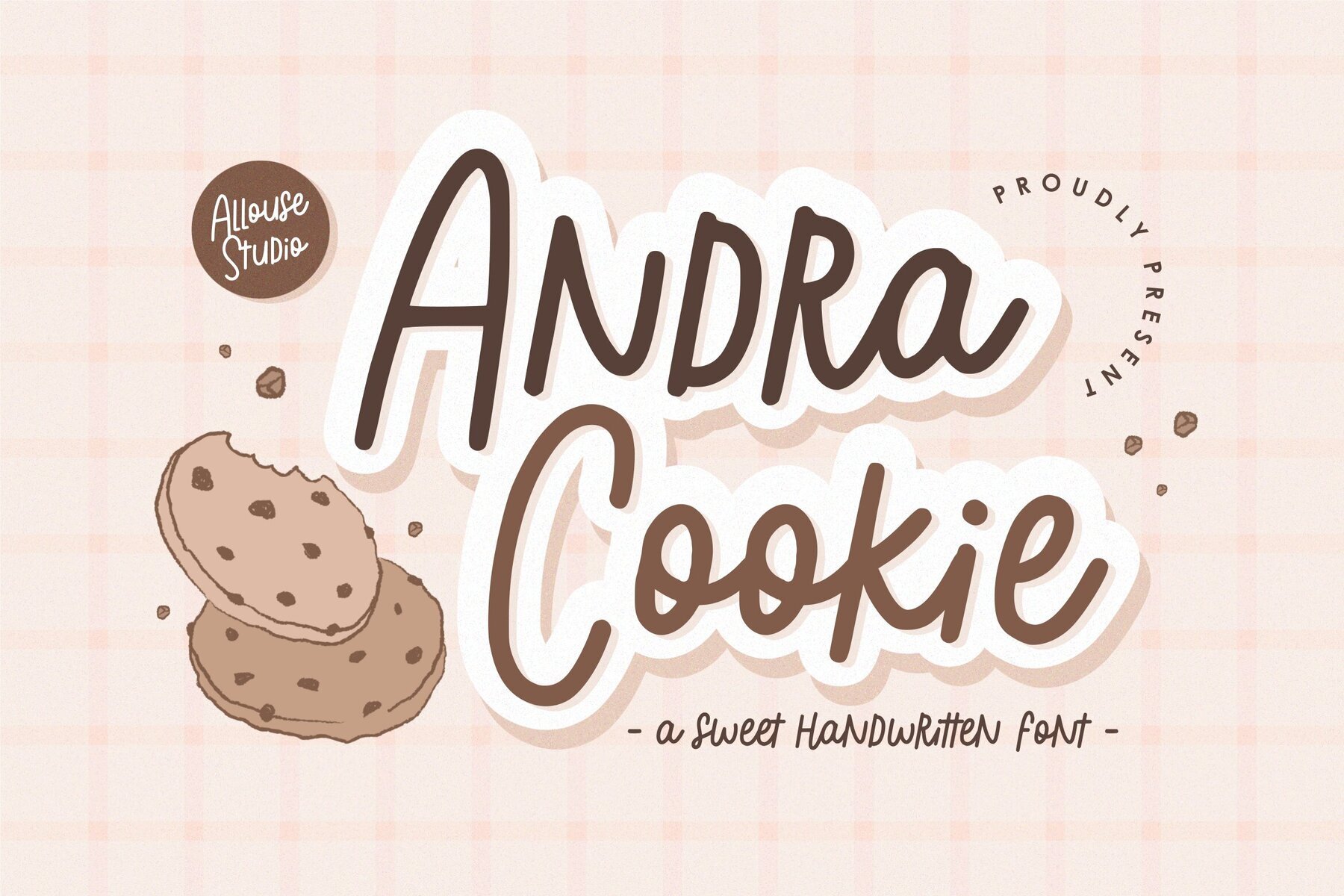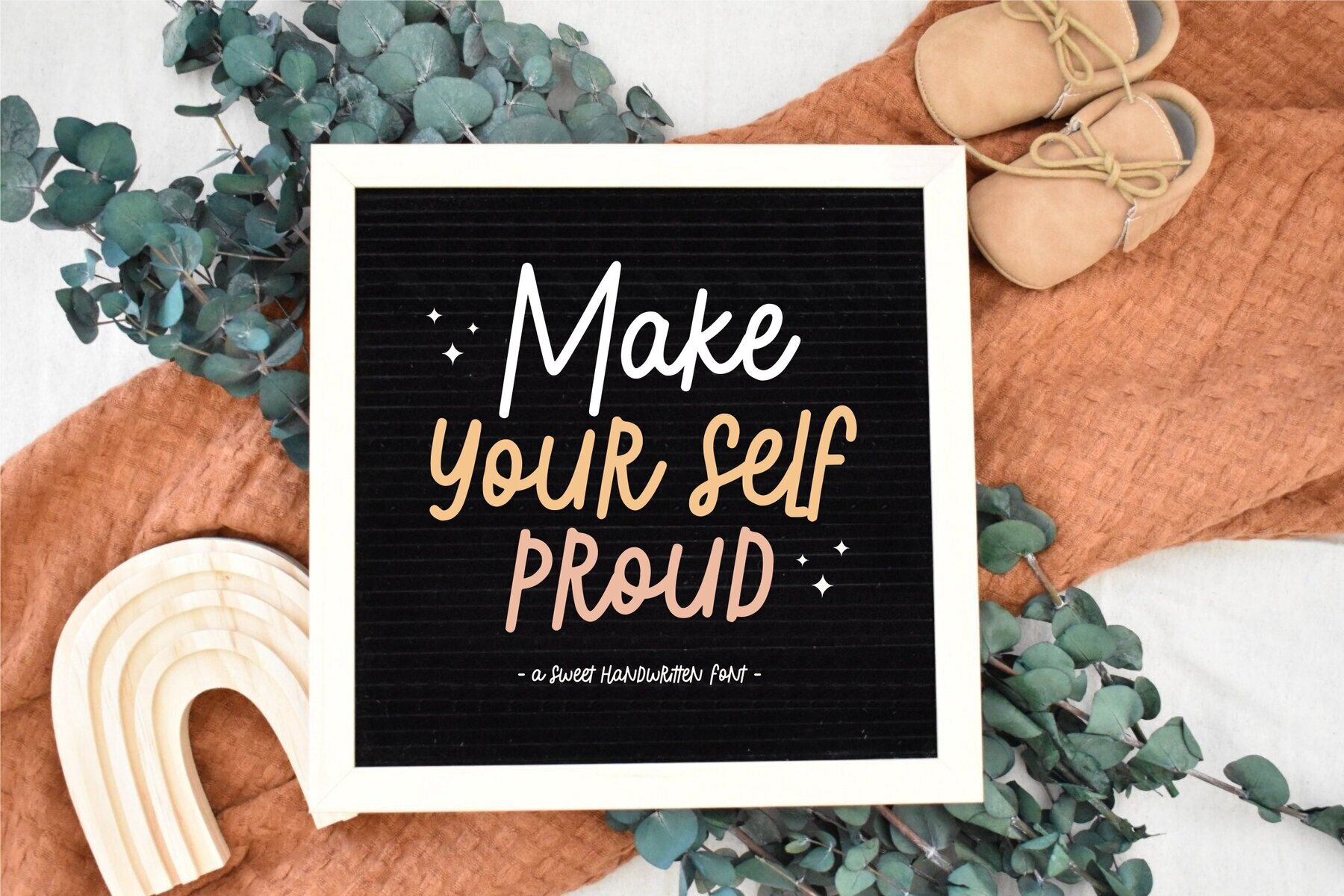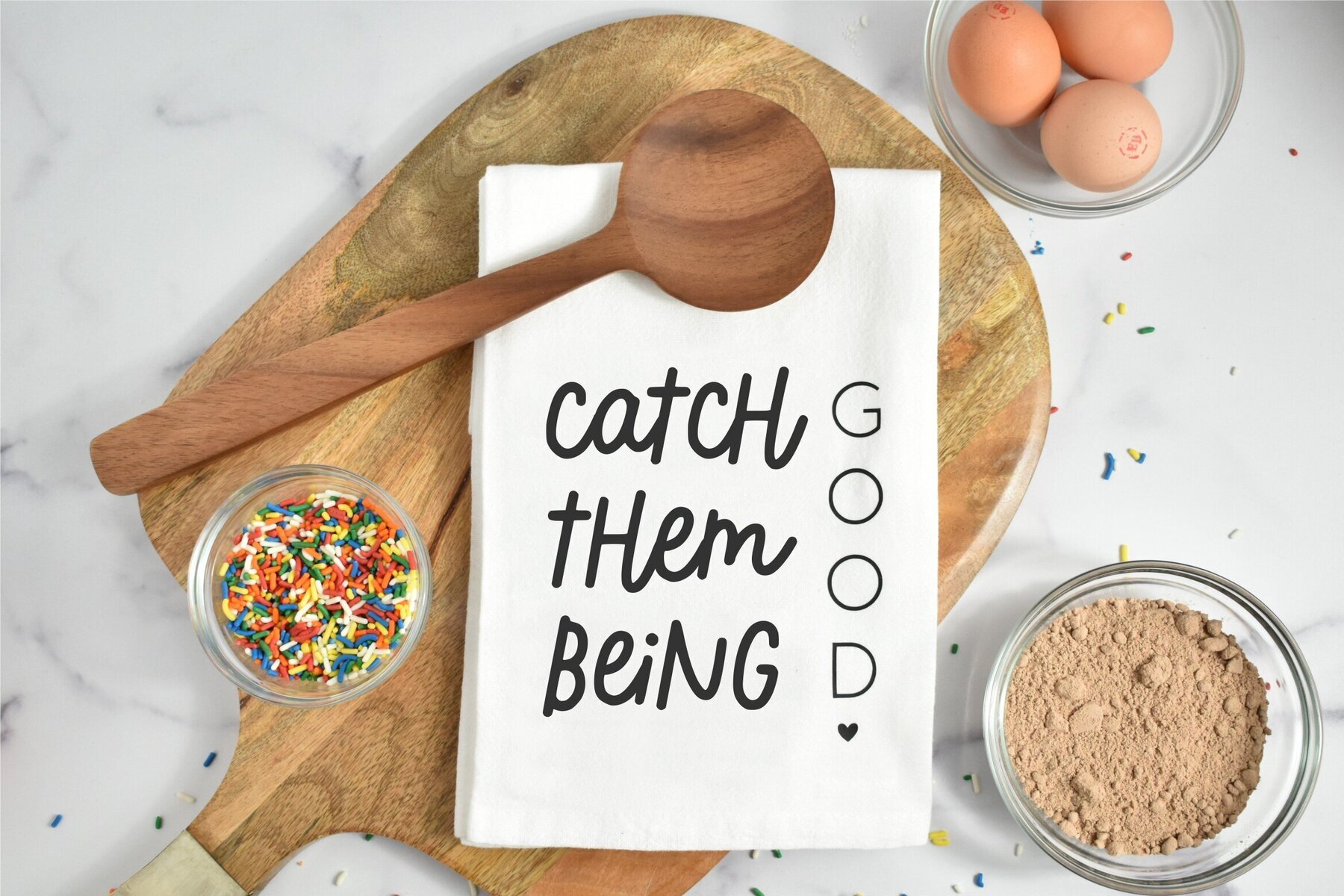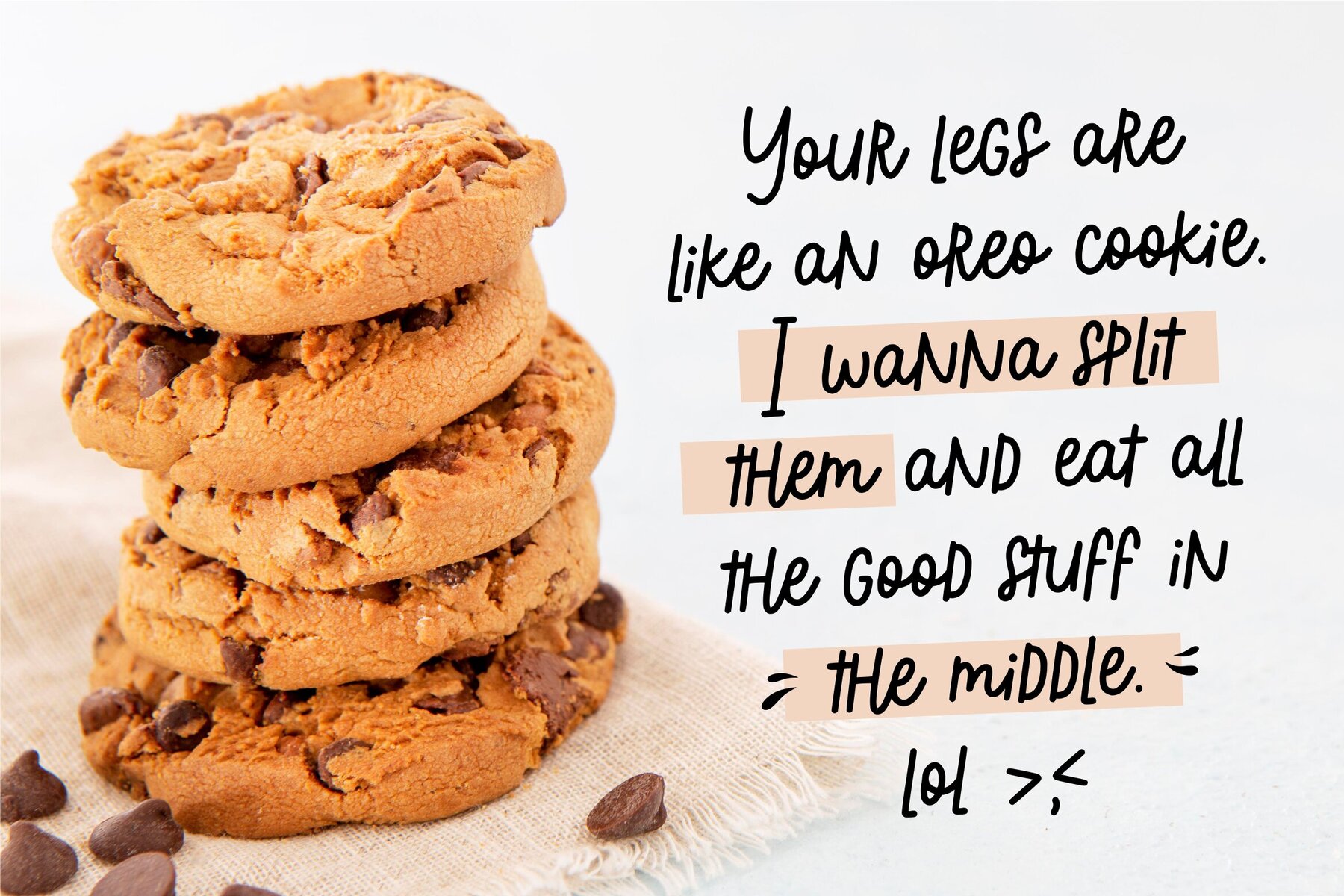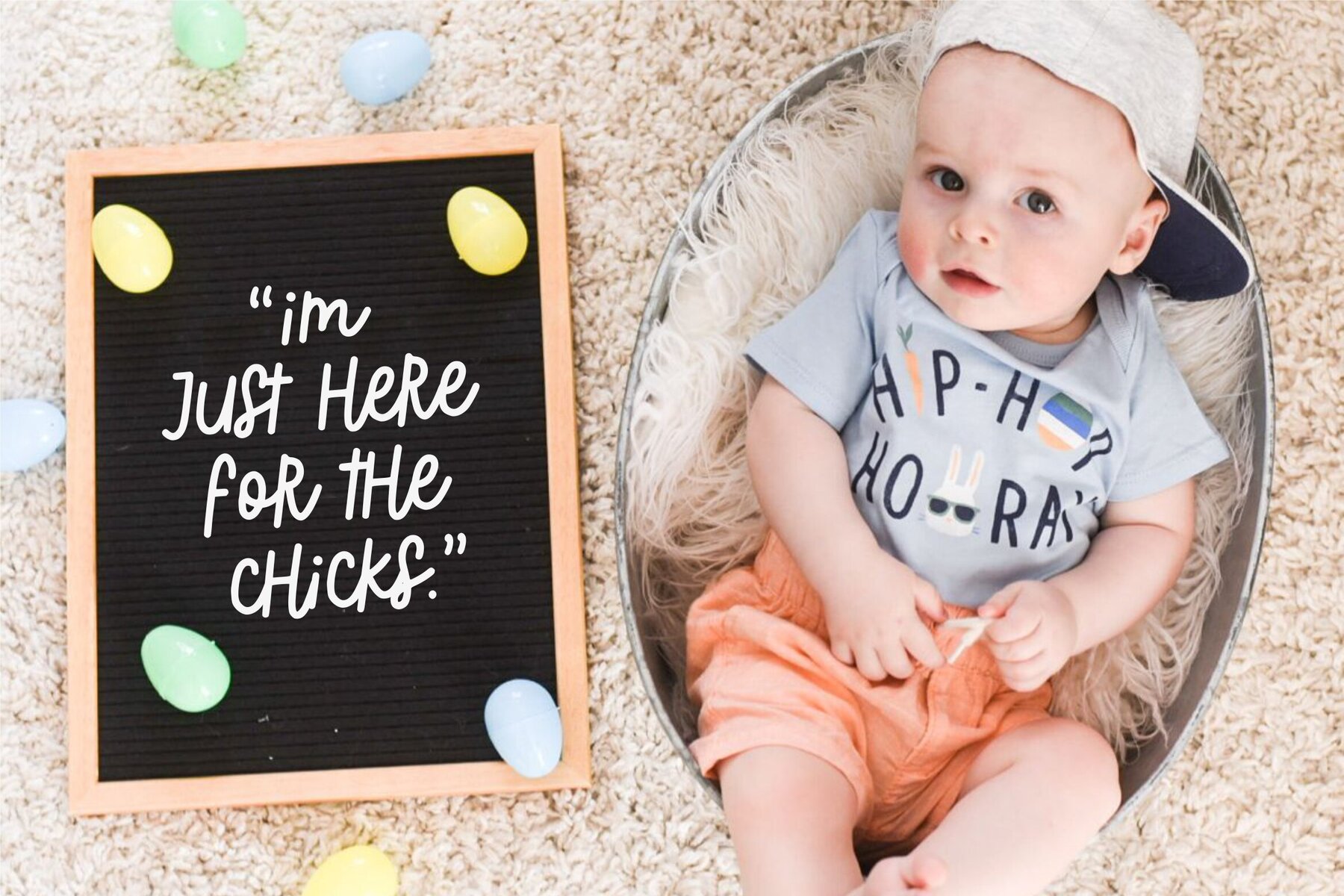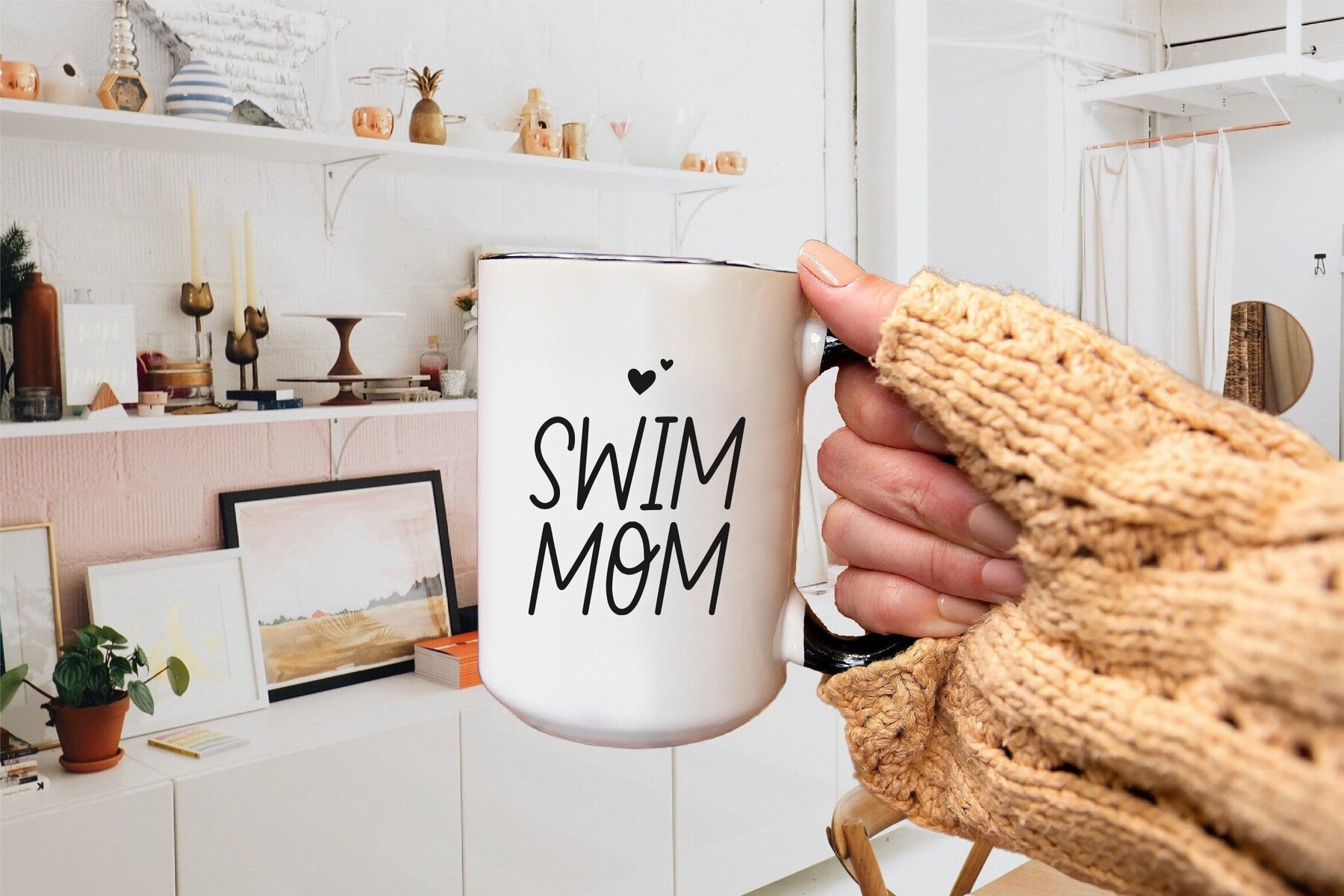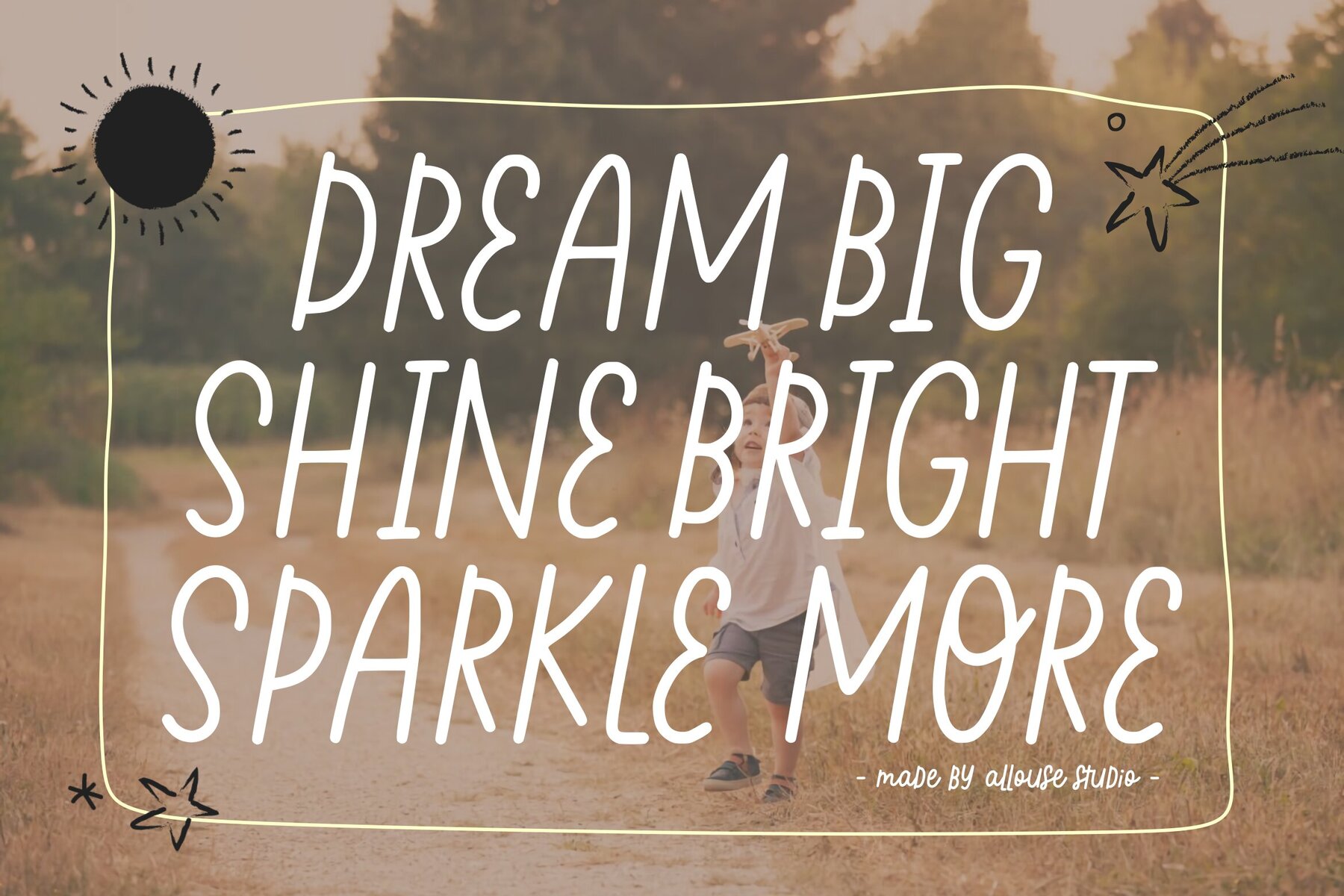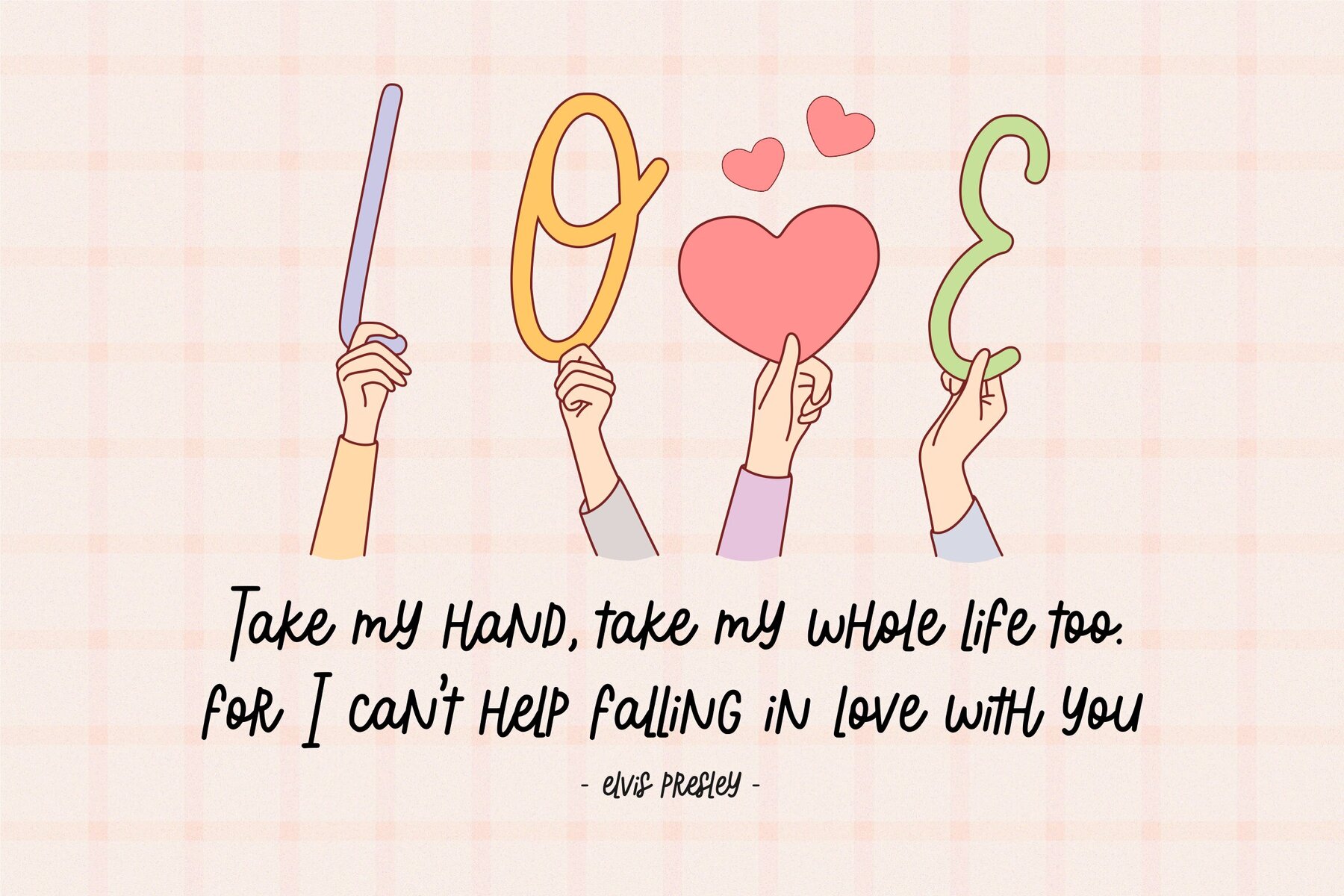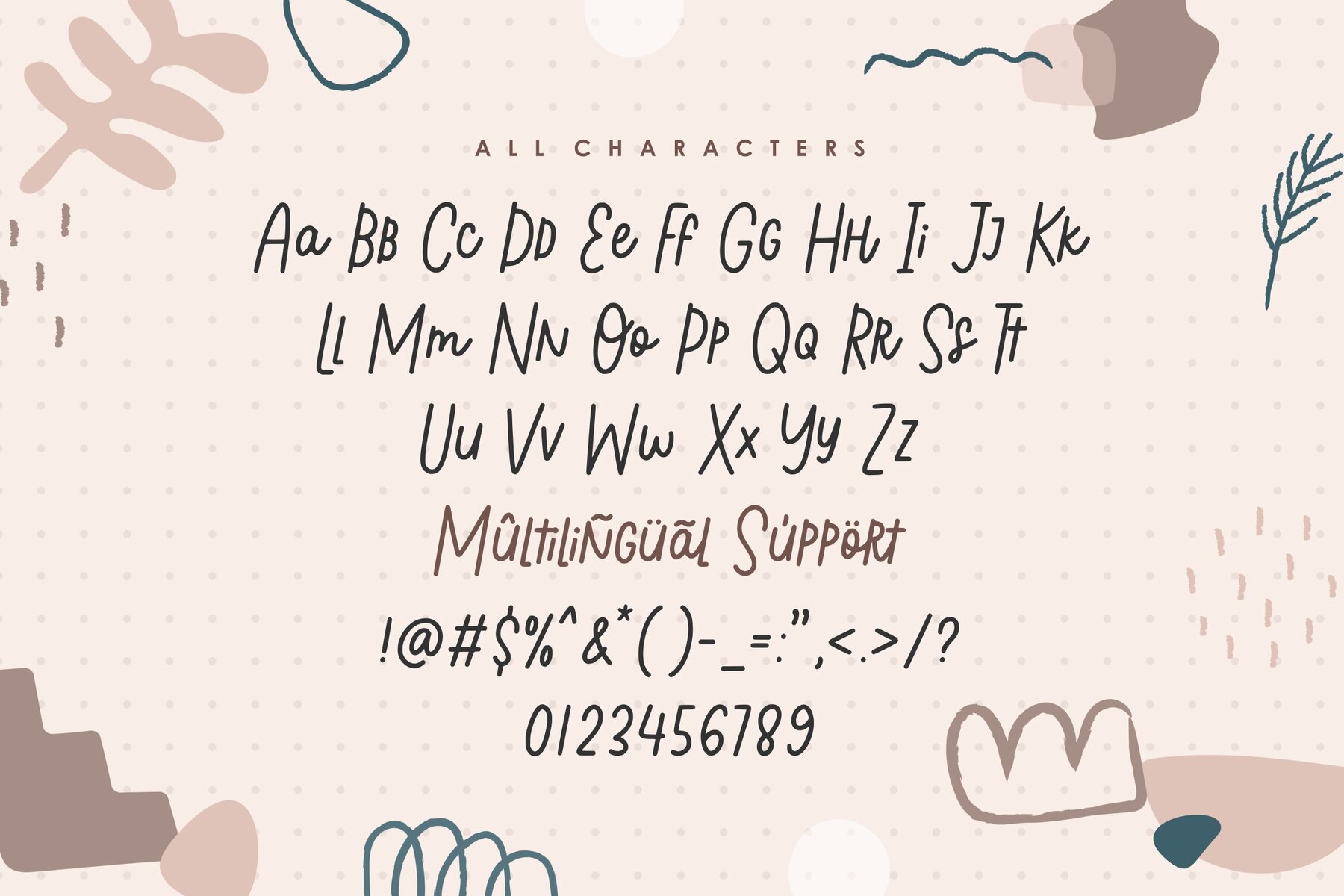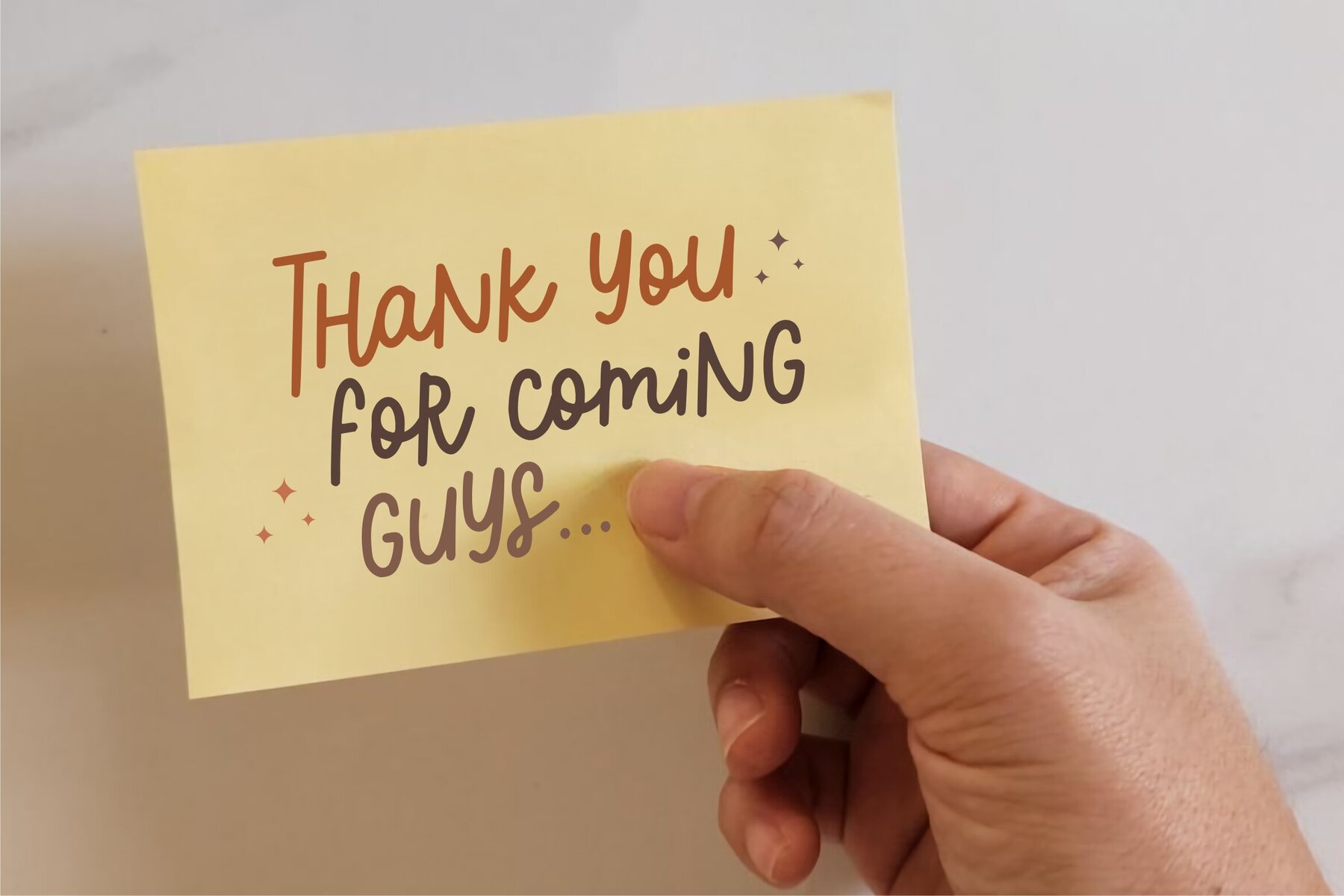
Andra Cookie Font
Andra Cookie Regular
Andra Cookie is an ideal choice for adding a whimsical touch to product packaging, branding projects, magazines, social media graphics, and wedding designs. This typeface helps convey messages effectively, especially when layered over backgrounds for added flair.Andra Cookie: A Playful Typeface for Creative Projects